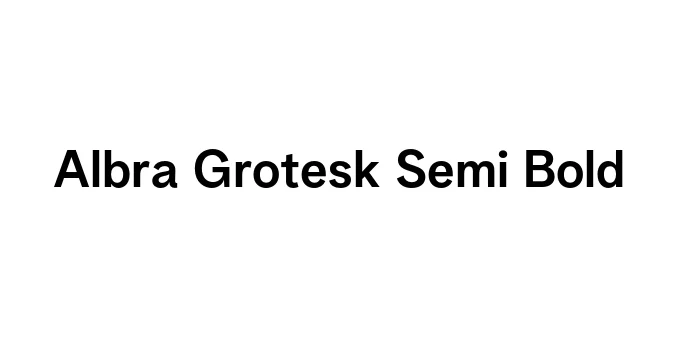
Albra Grotesk Semi Bold
Designed by Valerio Dell’Edera (BumBumType)
Albra Grotesk Semi Bold is a contemporary sans-serif typeface that masterfully blends the classic, utilitarian roots of grotesque fonts with modern elegance. Designed to serve as a versatile companion to its serif counterpart, Albra Grotesk focuses on refined proportions and a clean structural rhythm, making it highly adaptable for both digital and physical environments.
The Semi Bold weight specifically offers a perfect middle ground between impact and legibility. It features a sturdy stroke width that commands attention without overwhelming the surrounding design elements. Its sophisticated geometry and subtle character make it an essential choice for designers seeking a typeface that conveys professional authority and modern sophistication.
Albra Grotesk Semi Bold Best Uses
Ideal for creating modern, high-end logos and brand identity systems.
Perfect for headlines and pull-quotes in magazine layouts.
Ensures high readability for interface elements on mobile and web.
Strong enough for bold outdoor signage and social media graphics.
Albra Grotesk Semi Bold Glyphs